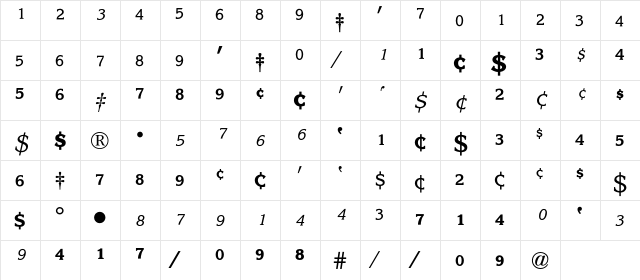
Korinna Fractions BQ Regular
Design Context for Korinna Fractions BQ Typeface
Korinna Fractions BQ offers clean, dependable letterforms without strong stylistic allegiance, making it a practical choice for designers who need flexibility.
Pro Tip: Use Korinna Fractions BQ in both headline and body roles to test its range before committing to a single application.